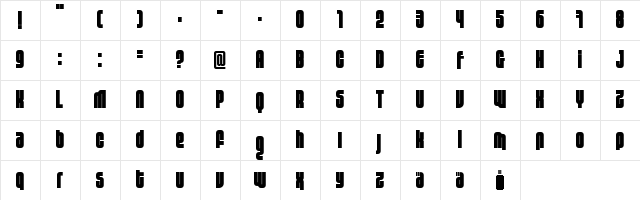
Design Context for 10.12
10.12 is a composed and adaptable typeface that performs quietly and consistently across a wide range of design contexts.
Pro Tip: Use 10.12 in both headline and body roles to test its range before committing to a single application.